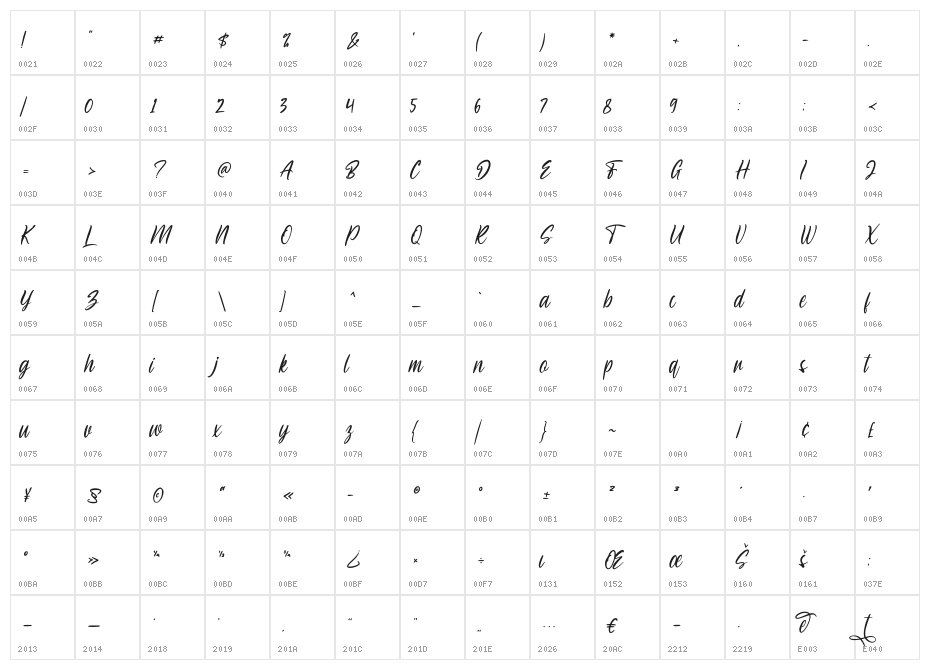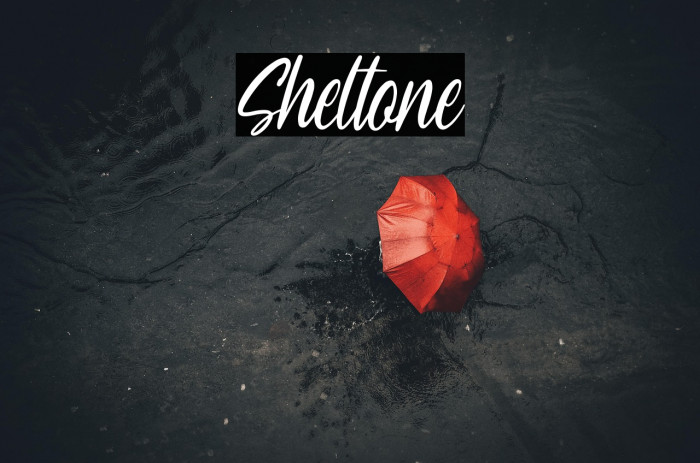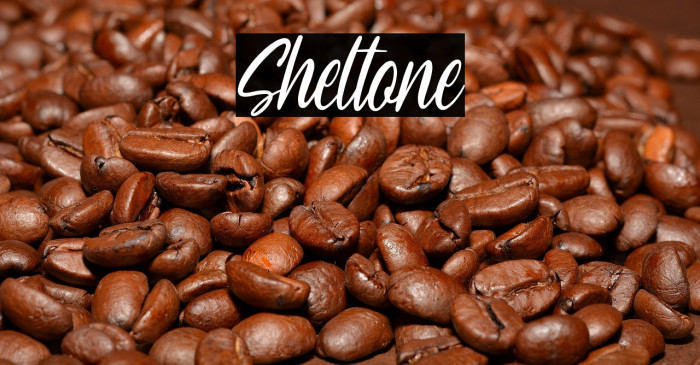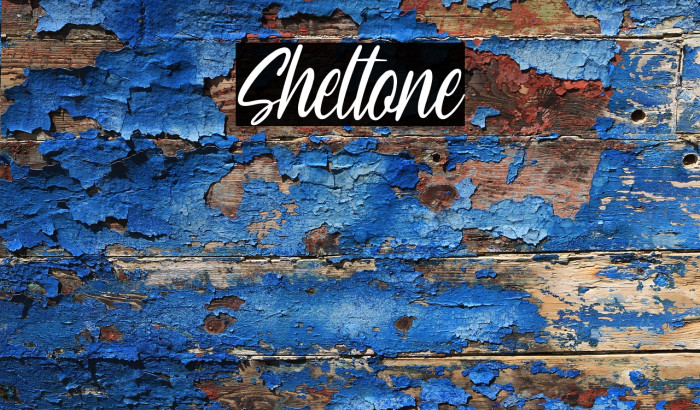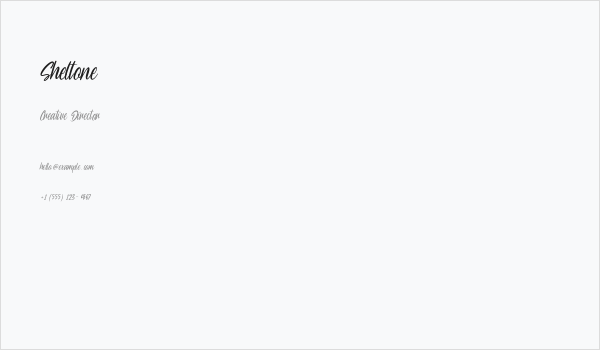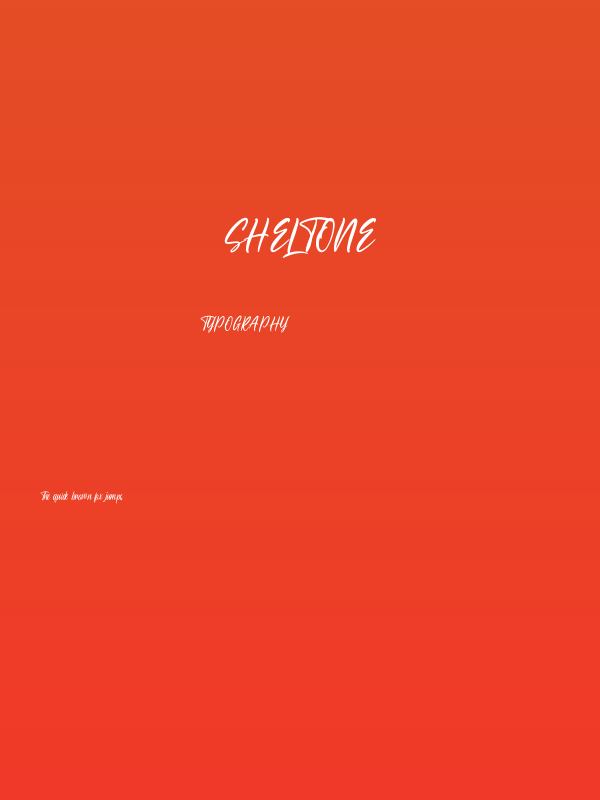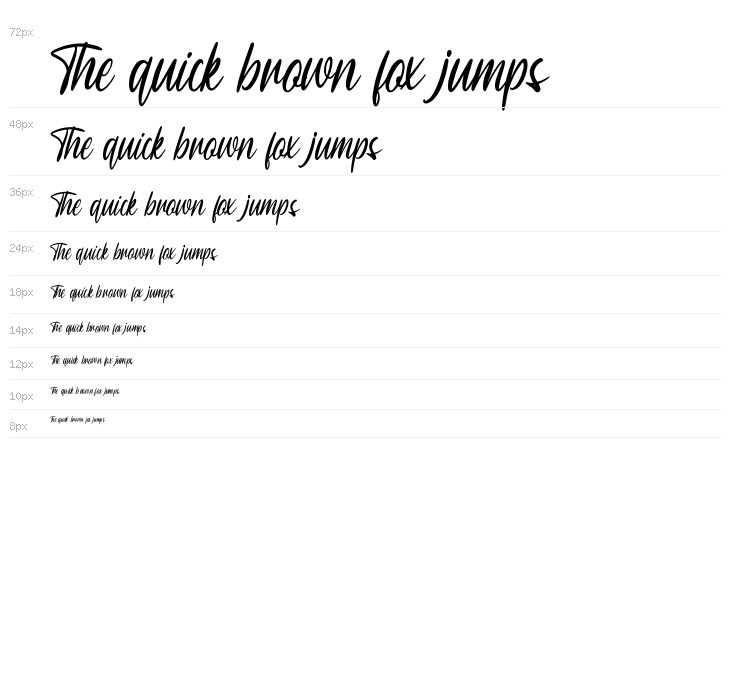
Sheltone Font
Sheltone Description
This font exudes a dynamic and elegant script style, characterized by its fluid and cursive letterforms. The uppercase letters are bold and sweeping, with a distinct flair that adds a touch of sophistication. The lowercase letters maintain a consistent flow, enhancing readability while preserving the artistic essence. Numbers and special characters are crafted with the same attention to detail, ensuring a cohesive look across all text. The font's overall appearance is both stylish and versatile, making it suitable for a variety of design applications.
Overall StyleElegant
Use CaseLogos, Invitations, Branding
Proposed ProjectsIdeal for wedding invitations, branding, logo design, and elegant packaging.